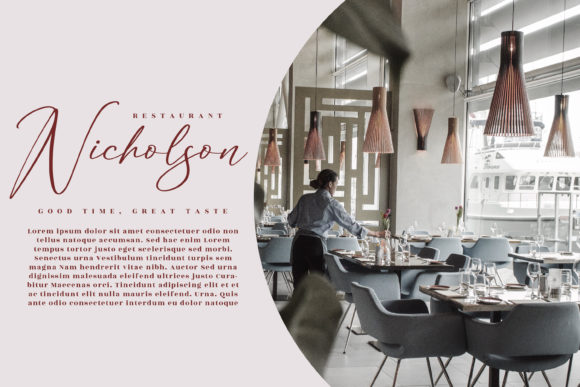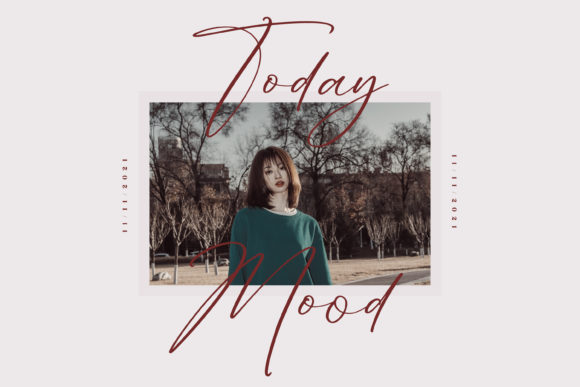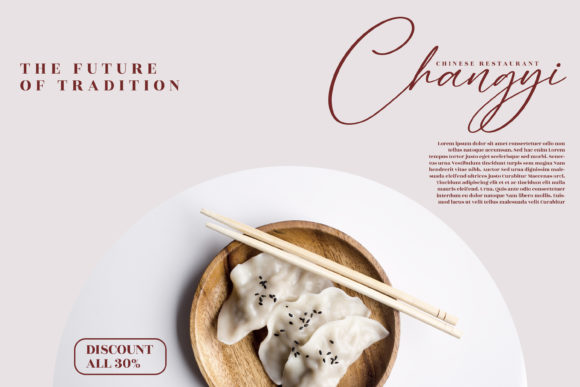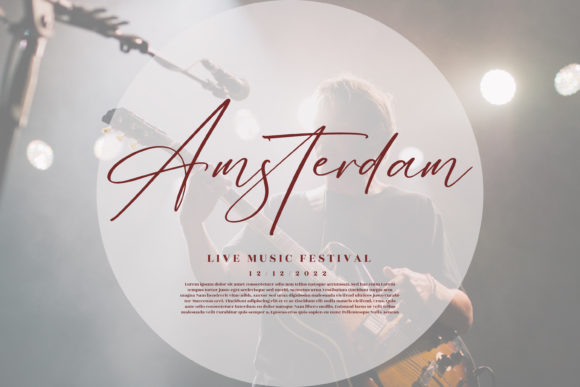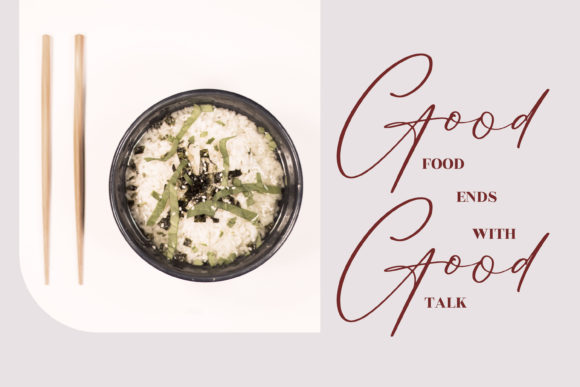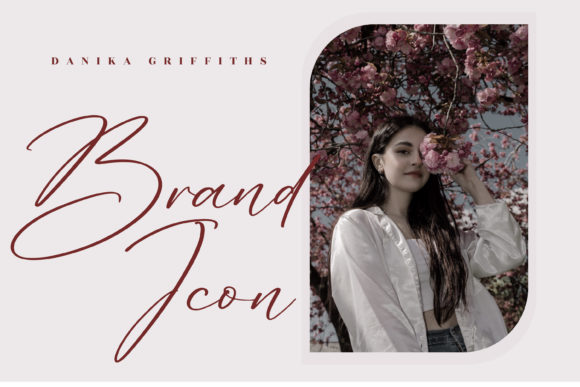
Introducing Antariskalia Signature Font: Elevate Your Designs with Elegance
In the world of design, fonts play a crucial role in conveying the tone and personality of a brand or project. For those seeking a stylish and elegant script font to add a customized touch to their designs, Antariskalia Signature is an exceptional choice. This beautifully crafted font is not only visually stunning but also incredibly versatile, making it suitable for a wide range of design applications.
What Makes Antariskalia Signature Stand Out?
Antariskalia Signature is a script font that exudes elegance and sophistication. Its flowing lines and intricate details make it perfect for designs that require a touch of luxury and refinement. Whether you’re working on a branding project, packaging design, or a digital advertisement, this font is sure to make your work stand out.
One of the key features that sets Antariskalia Signature apart is its PUA (Private Use Area) encoding. This means that the font includes a wide range of glyphs and swashes that can be easily accessed, allowing designers to experiment with different styles and variations. The PUA encoding ensures that you have complete control over the font, enabling you to create unique and customized designs that reflect your brand’s personality.
Key Features of Antariskalia Signature Font
- Stylish and Elegant Design: Antariskalia Signature boasts a beautiful script design that adds a touch of sophistication to any project.
- PUA Encoded: With PUA encoding, you can easily access a wide range of glyphs and swashes, giving you the flexibility to create customized designs.
- Versatile: This font is suitable for various design applications, including branding, packaging, digital advertisements, and more.
- Ease of Use: Designed with user-friendliness in mind, Antariskalia Signature can be easily integrated into your design workflow.
Applications of Antariskalia Signature Font
The versatility of Antariskalia Signature makes it an excellent choice for a multitude of design projects. Here are some of the areas where this font truly shines:
- Branding and Logos: Create a lasting impression with a logo that embodies elegance and sophistication.
- Packaging Design: Elevate your product packaging with a font that communicates luxury and quality.
- Digital Advertisements: Stand out in the digital landscape with ads that feature a stylish and eye-catching font.
- Stationery and Invitations: Add a touch of class to your stationery, invitations, and greeting cards.
- Web Design: Enhance the aesthetic appeal of your website with a font that offers both readability and style.
Tips for Maximizing the Potential of Antariskalia Signature
To get the most out of Antariskalia Signature, consider the following tips:
- Experiment with Swashes: Take advantage of the font’s swashes to add flair to your designs.
- Mix and Match: Don’t be afraid to combine Antariskalia Signature with other fonts to create a unique visual hierarchy.
- Adjust Font Sizes: Play with different font sizes to emphasize certain elements of your design.
- Explore Color Options: Experiment with various colors to find the perfect match that complements your brand’s palette.
Antariskalia Signature Font is a stylish and elegant script font that can elevate your designs to new heights. Its PUA encoding, versatility, and ease of use make it an invaluable asset for designers and crafters looking to add a customized touch to their projects. Whether you’re working on branding, packaging, digital ads, or any other design endeavor, Antariskalia Signature is sure to impress. With its wide range of applications and tips for maximizing its potential, this font is a must-have in every designer’s toolkit.